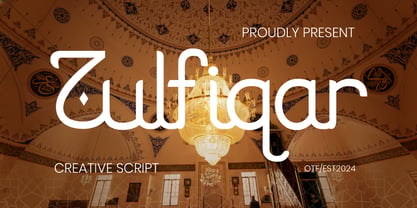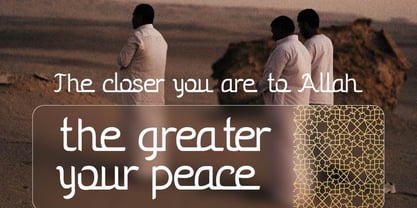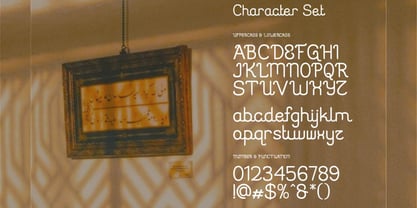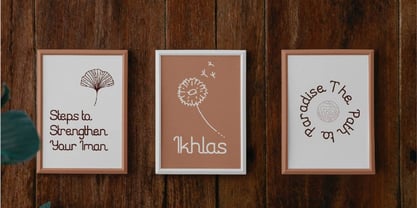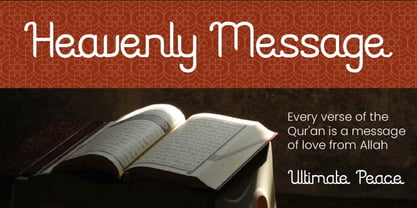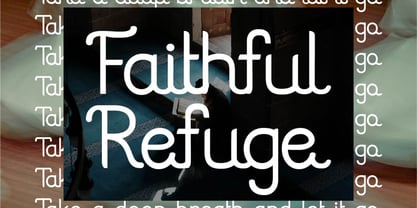
Zulfiqar
Elevate your designs with Zulfiqar Creative Script, a modern font perfect for adding elegance and style to your projects. This font offers key features like OpenType format compatibility, uppercase and lowercase characters, plus numerals and punctuation, perfect for versatile and professional designs. Whether it’s for quotes, logotypes, magazine headers or more.